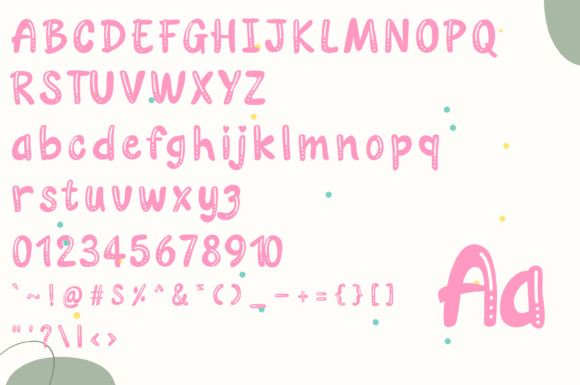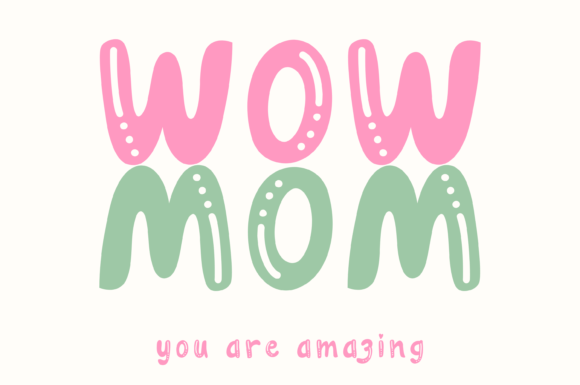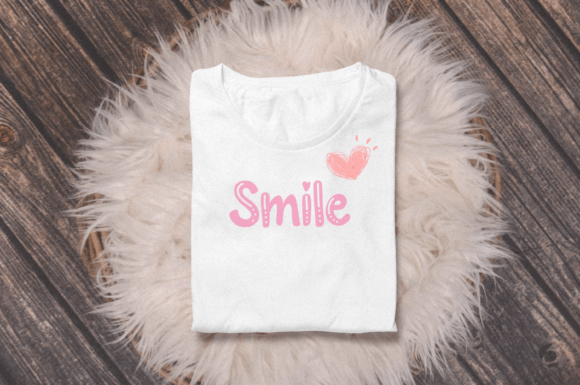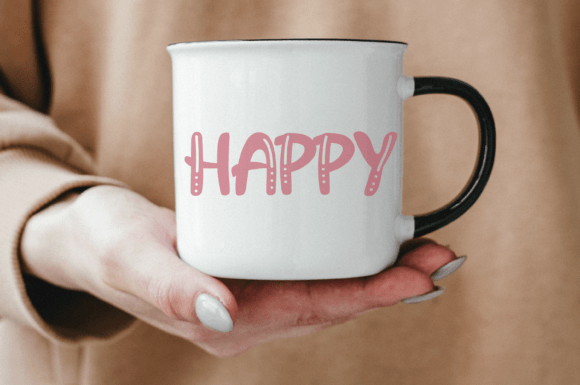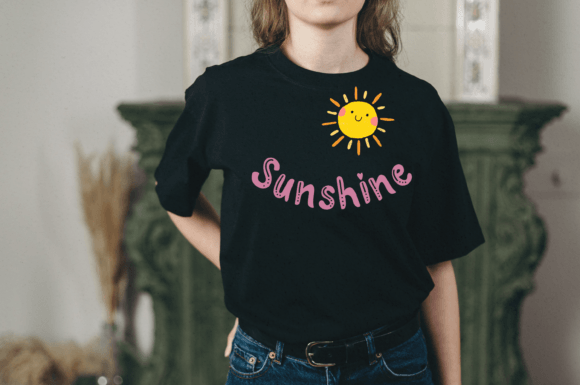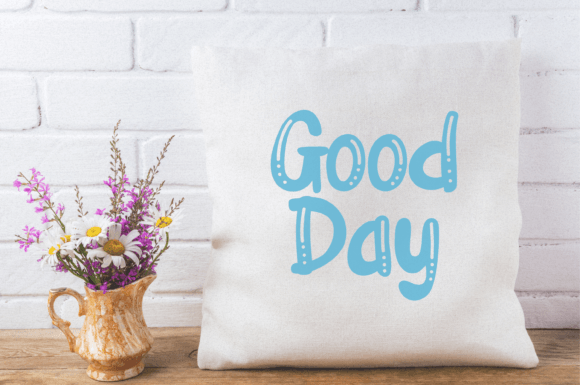
Discover the Power of Be Nice Font: Elevate Your Designs
Have you ever found yourself staring at a blank page, struggling to bring your creative vision to life? You’ve got a great idea, but the right words just aren’t flowing. It’s a moment we’ve all been in, and it’s exactly when we need a little help from a trusted ally – in this case, a font that can make all the difference.
Enter Be Nice Font, a charming and clean display font that’s ready to breathe new life into your projects. With its versatility and whimsical touch, Be Nice Font is the perfect companion for designers looking to add a unique twist to their work. Whether you’re crafting a logo, designing a website, or creating a social media campaign, Be Nice Font is sure to make your ideas stand out.
Key Features of Be Nice Font
- Font Size: The font is available in 4 different sizes, including Extra Light, Light, Regular, and Bold.
- Unique Characteristics: The Be Nice Font features a friendly and approachable design, making it ideal for use in body text and headlines.
- Language Support: Supports a wide range of languages, including Latin, Greek, Cyrillic, and many others.
- Font Weight: The font includes 4 weights, allowing for a range of visual effects and emphasis.
Be Nice Font Review
I recently had the chance to work with the “Be Nice Font” and I have to say it’s a unique addition to any design project. Here’s my honest review:
- Friendly feel: The font’s rounded edges and open letters give it a friendly, approachable vibe that’s perfect for branding and advertising.
- Versatile: Be Nice Font is suitable for both digital and print projects, making it a great choice for designers who need a reliable font for various mediums.
- Easy to read: The font’s clear lines and even spacing make it easy to read, even at smaller font sizes.
- Limited expressiveness: Be Nice Font’s friendly feel may not be suitable for more serious or complex designs, where a bolder or more dramatic font may be needed.
- Limited language support: Be Nice Font may not have the same level of language support as other fonts, which could limit its use in multilingual projects.
Overall, I think Be Nice Font is a solid choice for designers who want a friendly, approachable font for their projects. While it may not be the most expressive or versatile font, it’s easy to use and works well in a variety of contexts.
Be Nice Font is a great choice for:
- Creative and artistic projects.
- Projects that require a friendly and approachable tone.
- Headers and titles that need to stand out.
For the best results, use Be Nice Font in conjunction with bold or italic styles to add emphasis and create visual interest.